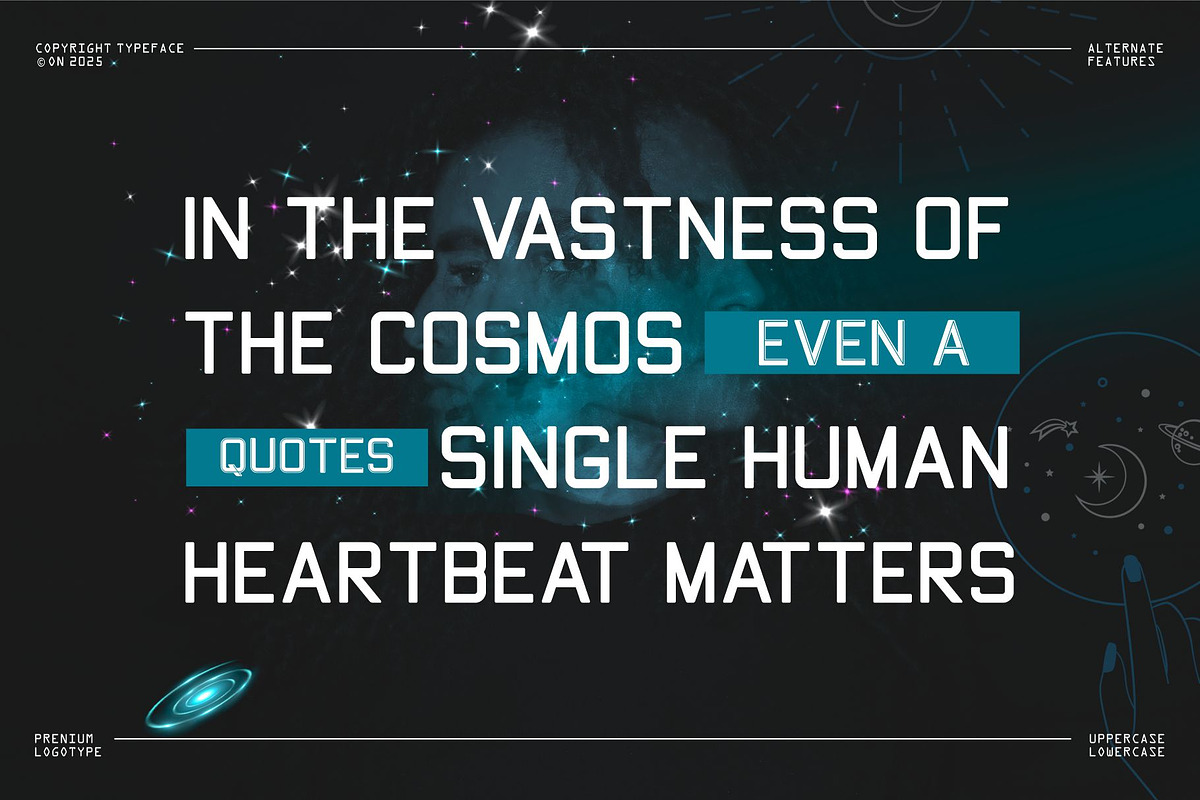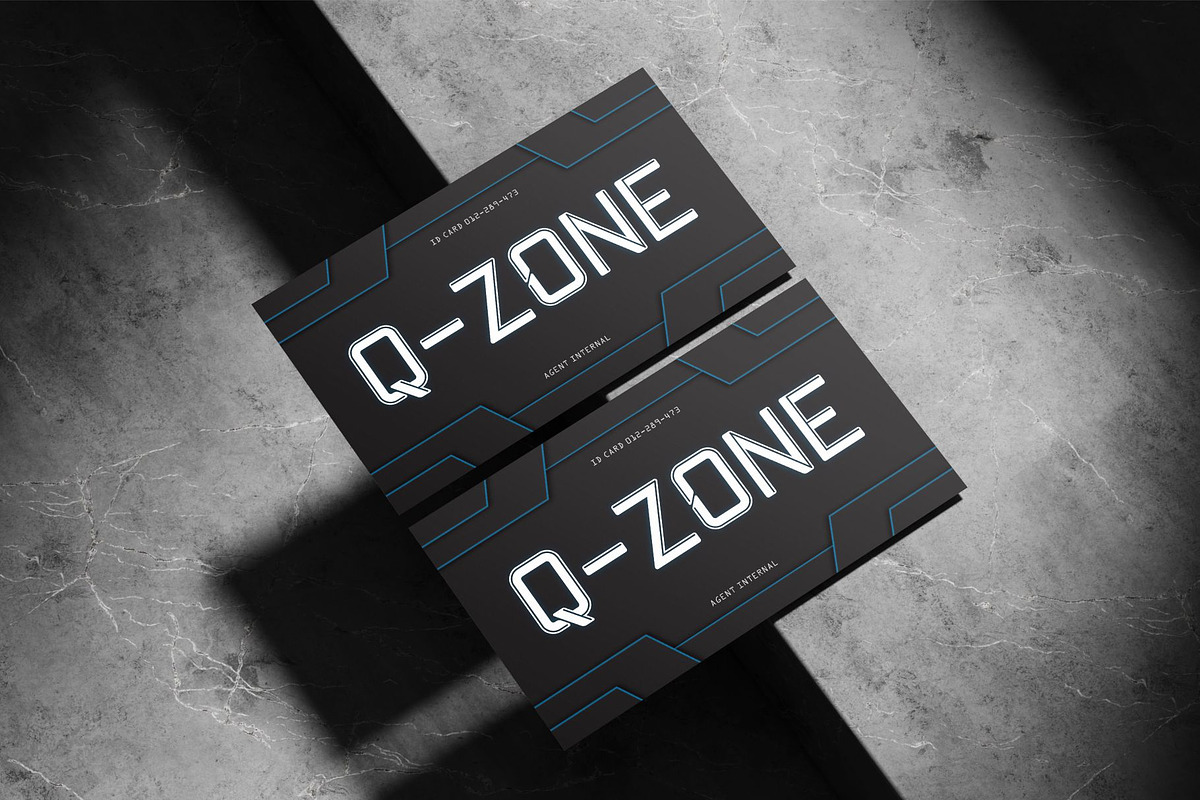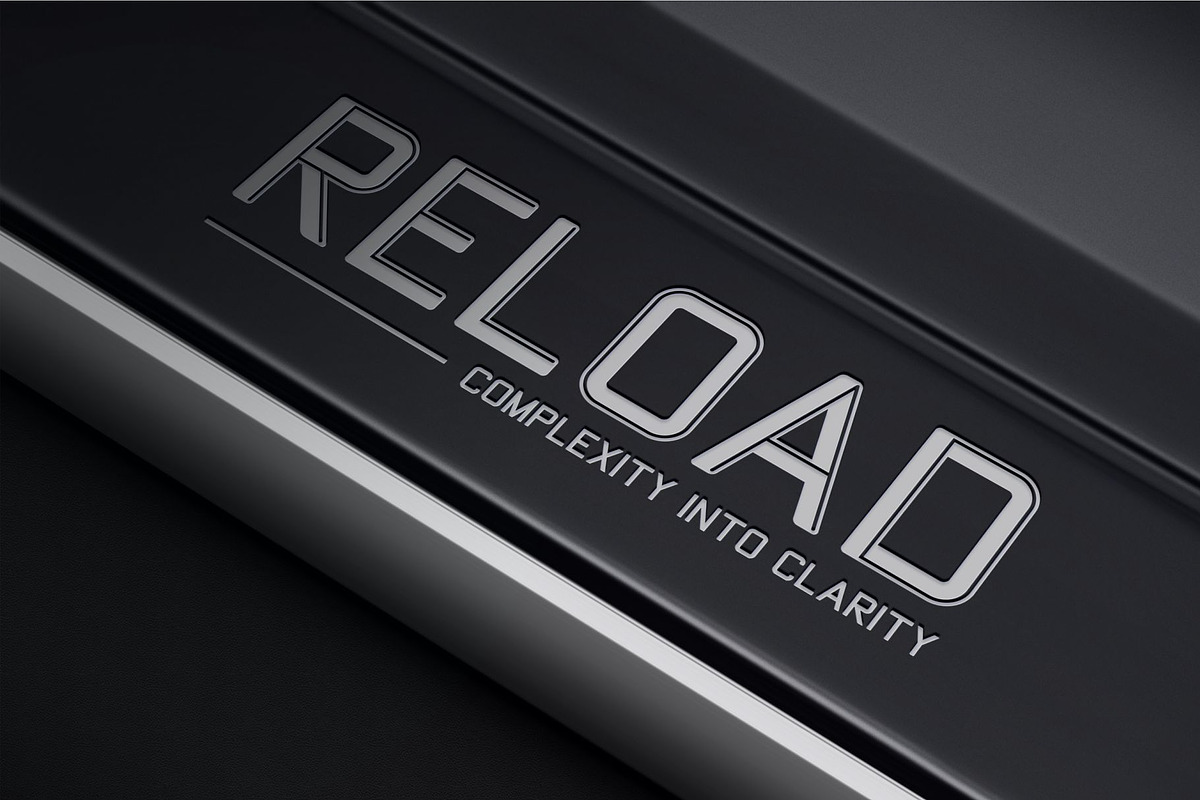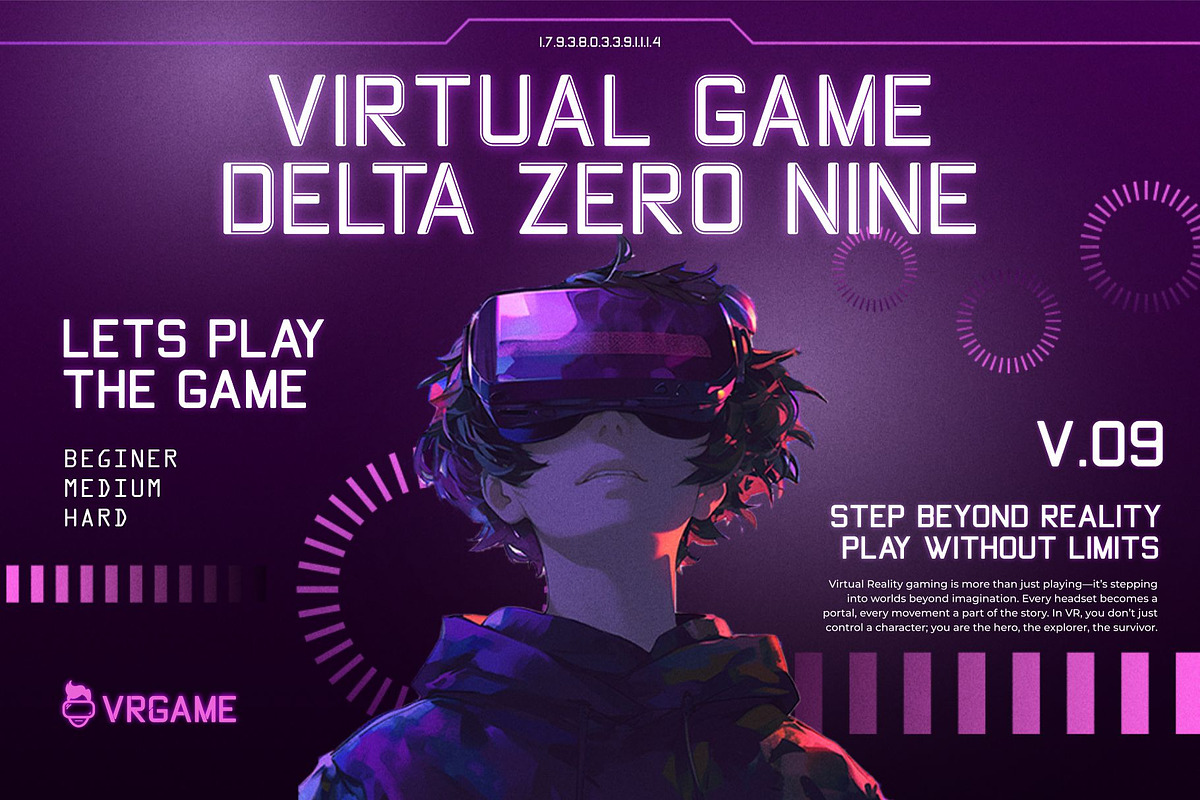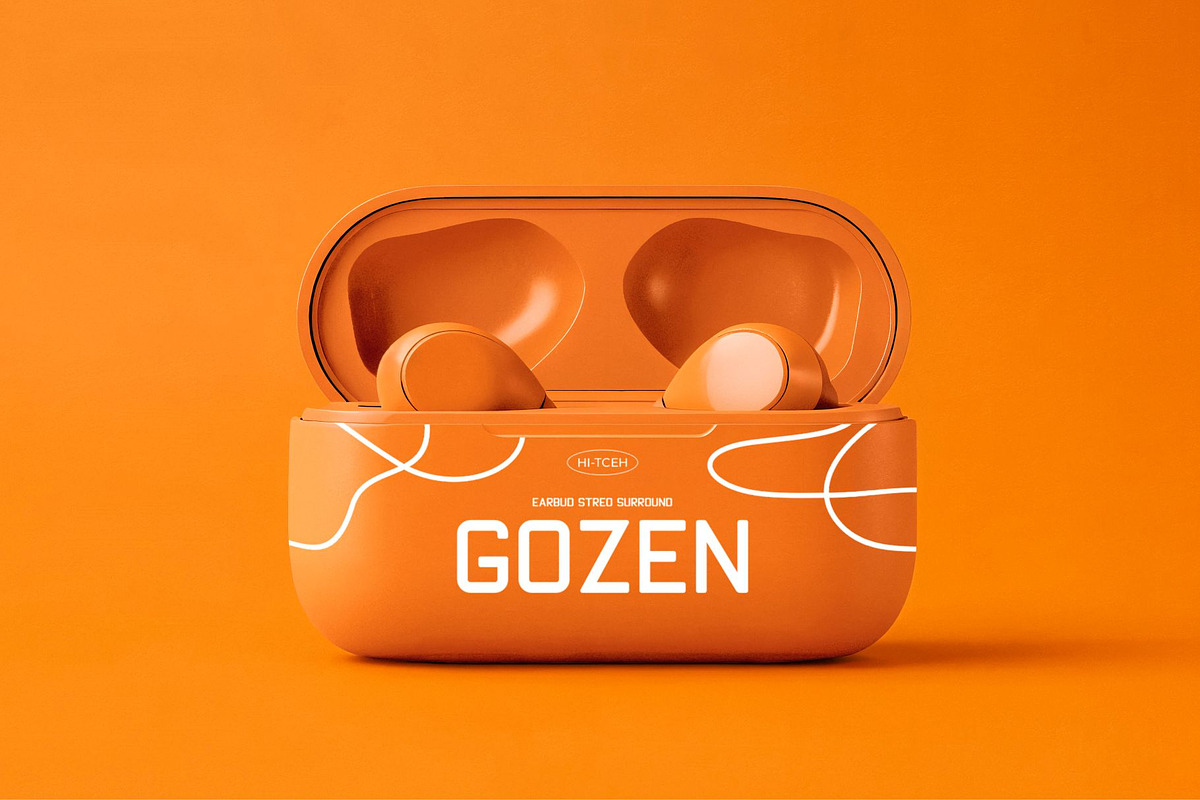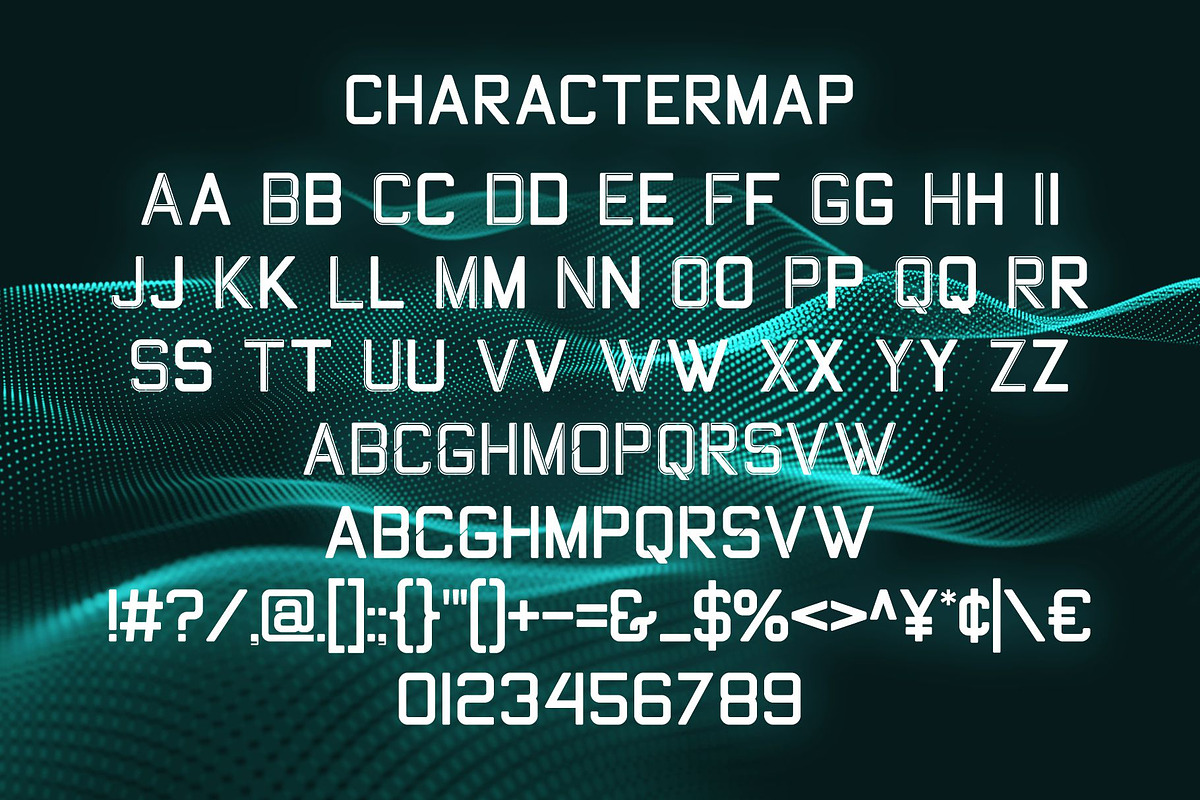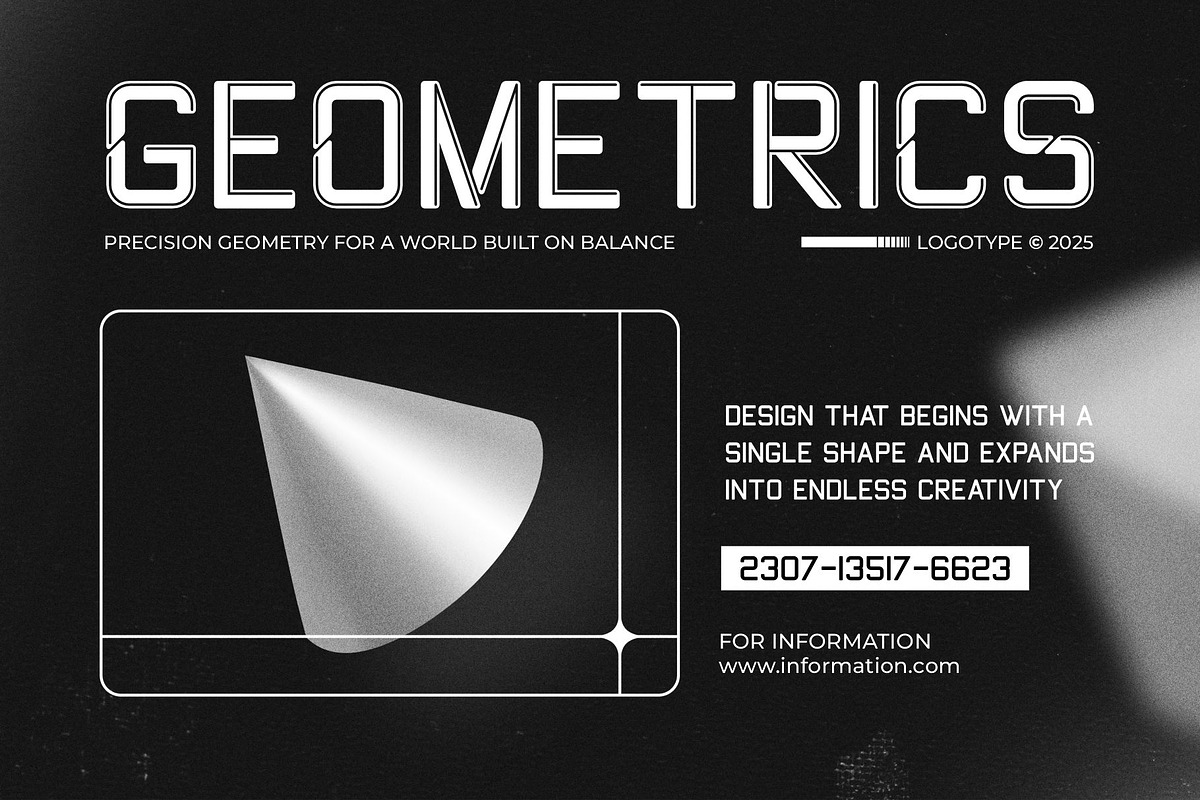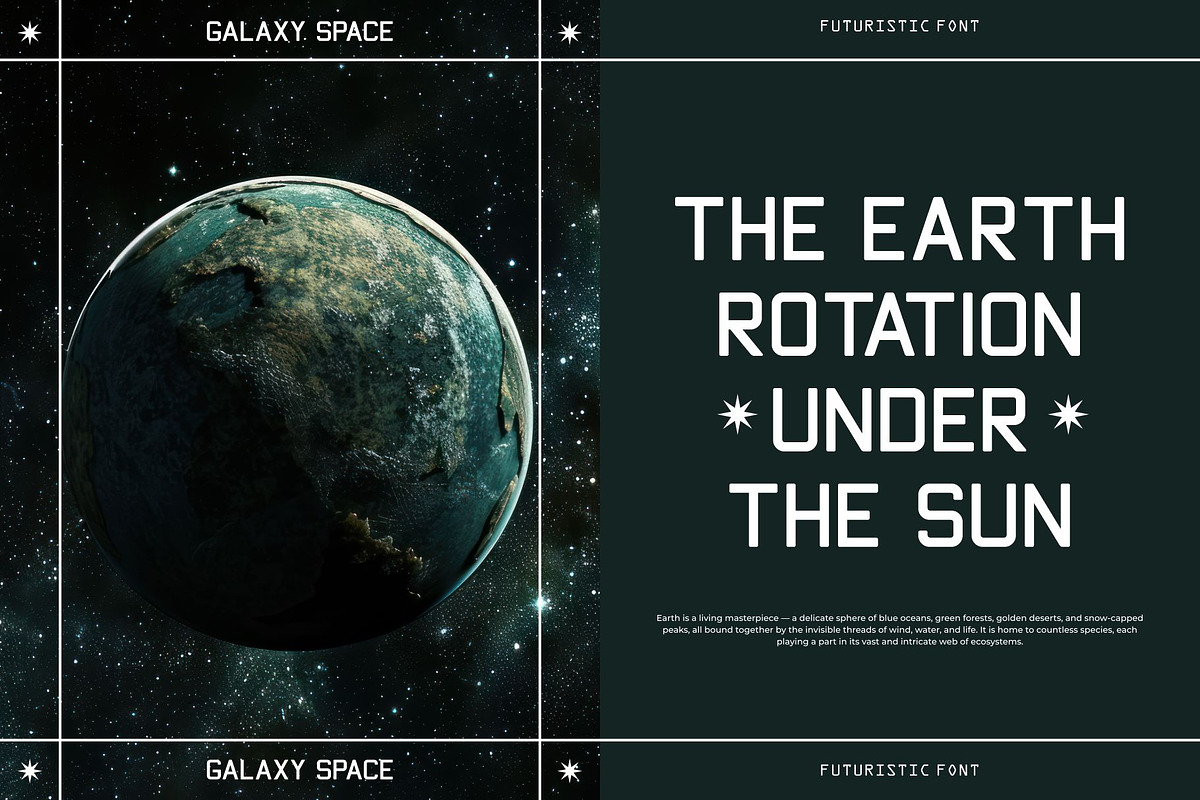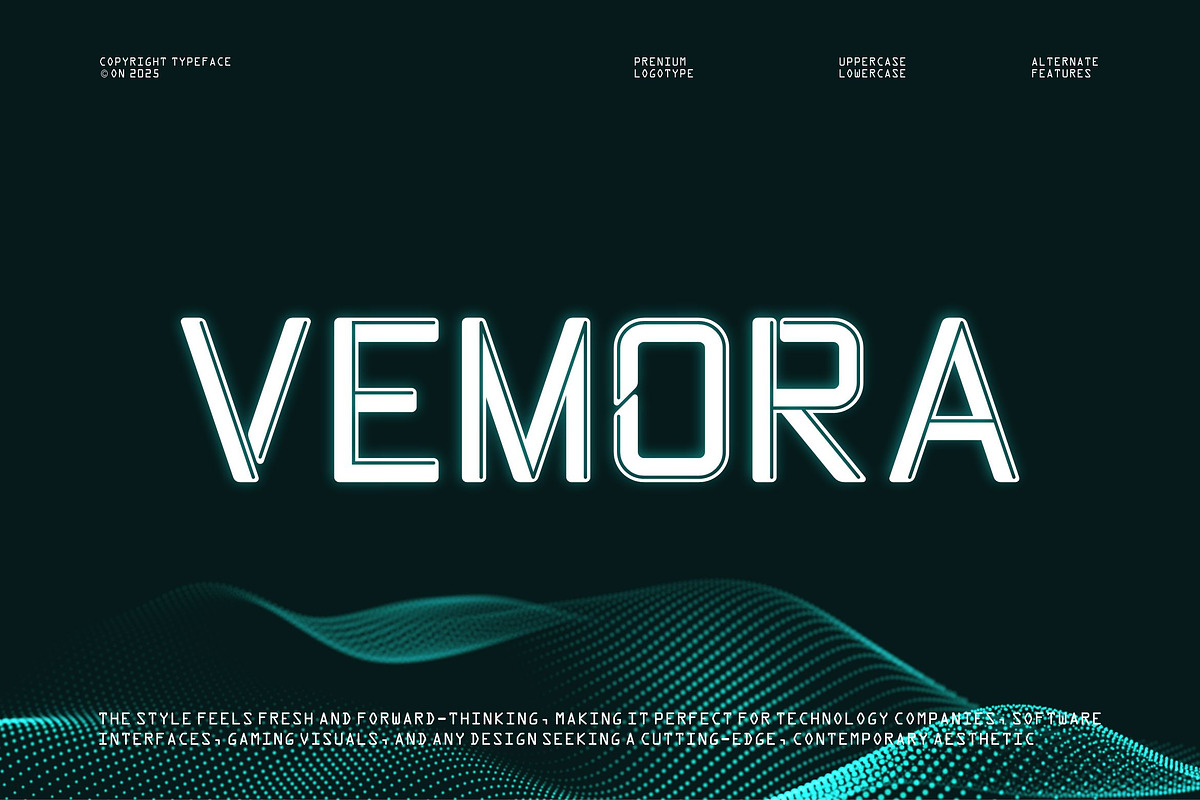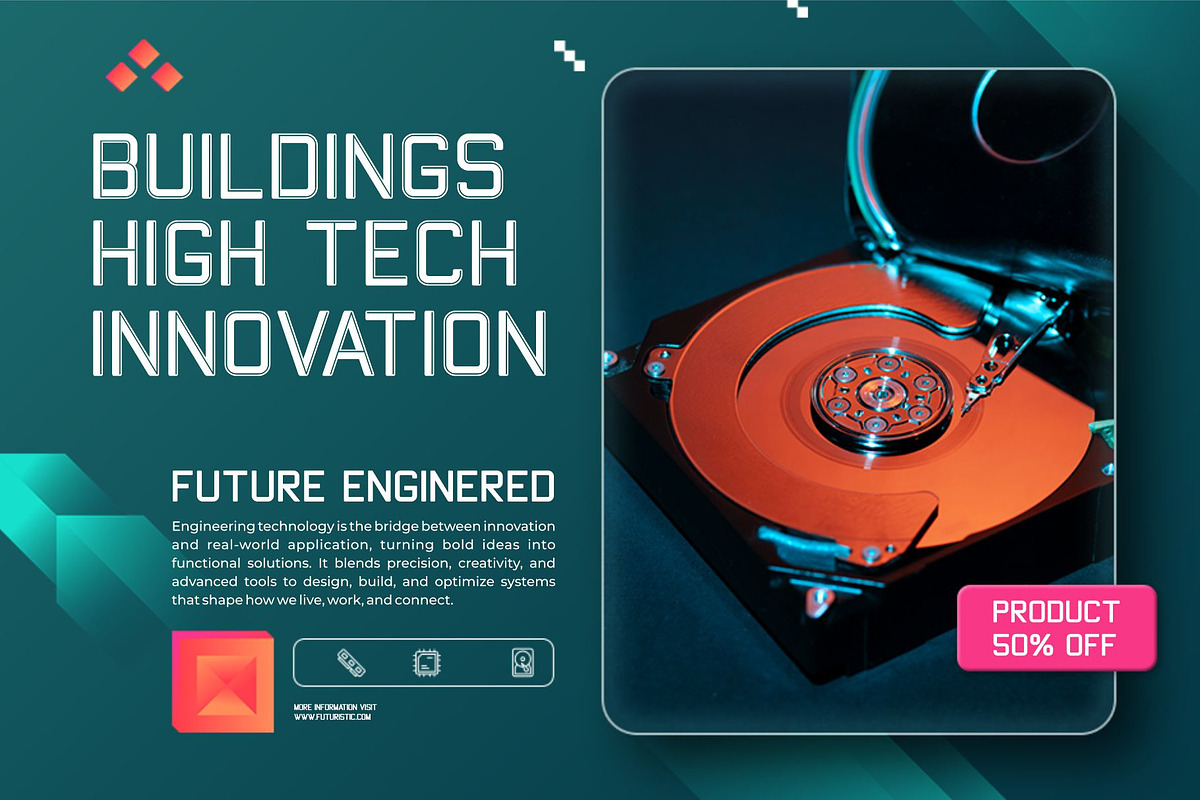
Vemora || Modern Futuristic Sans Ser
Vemora Sans Serif is a modern and futuristic font type for all branding and logo designs. This modern and futuristic Serif font has a beautiful character. This font is suitable for invitation card designs, cool logos, movie titles, movie names, business cards, book titles, brand names, and various other designs. Vemora Sans Serif is a smooth serif font that exudes sophistication and the moment. Its stylish alternate make this font a perfect partner for any project.